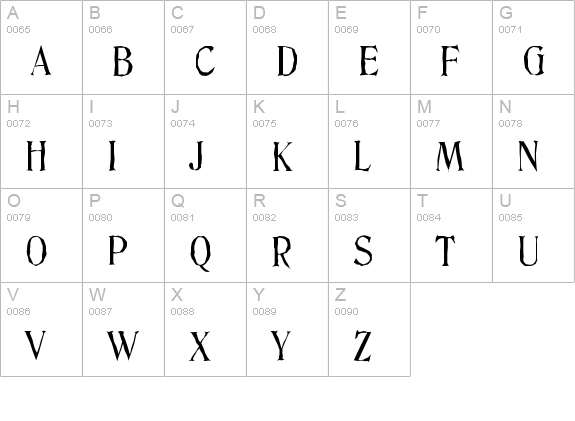
DenverAntique-Regular is the standard, neutral variant in the DenverAntique typeface family \xE2\x80\x94 well suited to general body text, paragraphs, and standard typographic work.
DenverAntique-Regular is a classic and elegant serif font that exudes a sense of timeless beauty and sophistication. With its intricate details and vintage charm, this font is perfect for adding a touch of nostalgia to any design project. Its graceful letterforms and delicate serifs make it ideal for creating elegant invitations, vintage-inspired logos, and stylish branding materials. What makes DenverAntique-Regular even more appealing is that it is available for free download at FontsMarket.com. This means you can easily access this exquisite font and use it in your projects without any hassle. Whether you are a designer looking to add a touch of vintage flair to your work or a business owner wanting to create a unique and memorable brand identity, DenverAntique-Regular is the perfect choice for you. Download DenverAntique-Regular now for free at FontsMarket.com and elevate your designs with its classic beauty and sophistication.